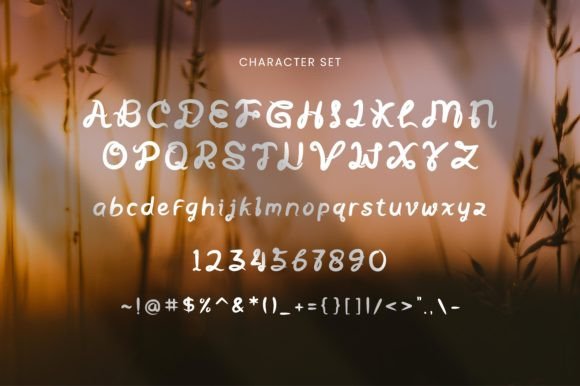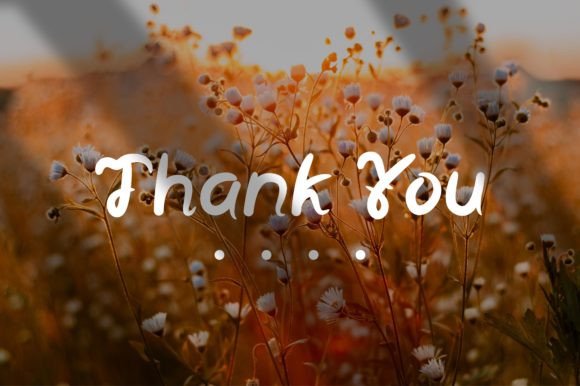
Introduction to Silvia Bolivia Font
Have you ever stared at a blank canvas, struggling to find the perfect font to bring your creative project to life? I know I have. As designers, we’ve all been there – searching for that elusive font that captures the essence of our vision. Well, say hello to Silvia Bolivia Font, a stunning, high-quality handwritten font that’s about to become your new design BFF.
With its modern, playful, and romantic vibe, Silvia Bolivia Font is the perfect fit for logos, branding, social media, and craft products. And the best part? It’s a free download, available for designers to use in their creative projects. Whether you’re a seasoned pro or just starting out, this design resource is sure to elevate your work and help you stand out from the crowd.
Key Features of Silvia Bolivia Font
- High-quality design resource for creative projects, offering a unique and elegant style.
- Features a transparent background, allowing for seamless integration with various design elements.
- Comes in a single weight and style, making it easy to use in a variety of design contexts.
- Designed with a resolution of 1024 x 1024 pixels, ensuring crisp and clear display on high-resolution screens.
- Perfect for use in logos, branding materials, and other creative projects where a touch of elegance is required.
Honest Review: Silvia Bolivia Font
As a designer, I’m always on the lookout for high-quality design resources to elevate my creative projects. Recently, I had the chance to work with the Silvia Bolivia Font, and I must say it’s been a pleasant surprise. Here’s my honest review.
- ✨ Unique and exotic design: The Silvia Bolivia Font boasts a distinctive and elegant style that’s perfect for adding a touch of sophistication to any creative project.
- ✨ Transparent background: The transparent background option allows for seamless integration with images and other design elements.
- ⚠️ Limited character set: The font only includes a limited character set, which may not be suitable for complex text-based projects.
- ⚠️ Not suitable for small text: Due to its elegant design, the font may not be the best choice for small text, as it can become difficult to read.
Overall, I’m impressed with the Silvia Bolivia Font’s unique design and versatility. While it may have some limitations, it’s a valuable resource for designers working on creative projects that require a touch of elegance and sophistication.
Introduction to Silvia Bolivia Font
Silvia Bolivia Font is a high-quality design resource perfect for creative projects. This beautiful font offers a unique and elegant style, making it ideal for various applications.
Tips for Getting the Most Out of Silvia Bolivia Font
To get the most out of Silvia Bolivia Font, use it with a transparent background to create a clean and elegant design. Experiment with different font sizes and styles to add visual interest to your project.
Silvia Bolivia Font is perfect for a variety of creative projects, including invitations, posters, business cards, and social media graphics. Its elegant style makes it ideal for weddings, birthdays, and other special occasions.